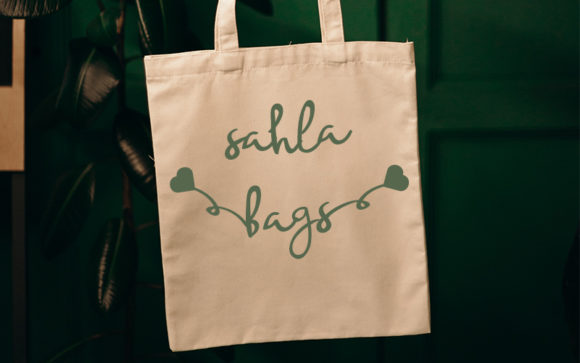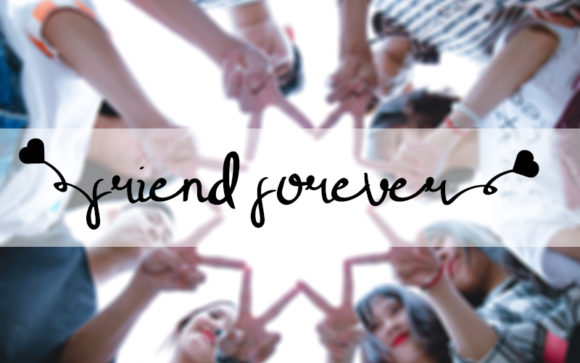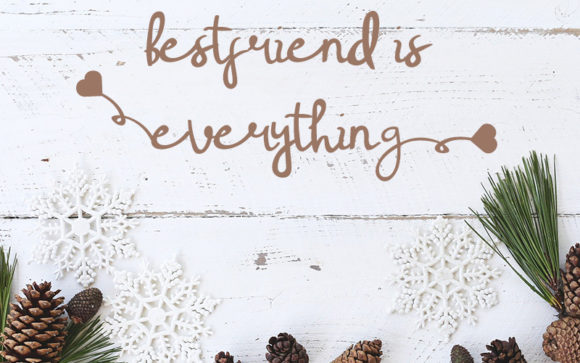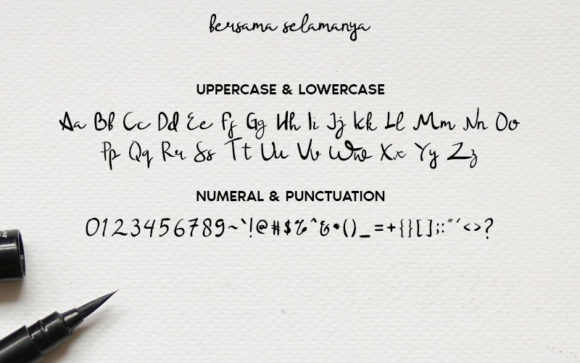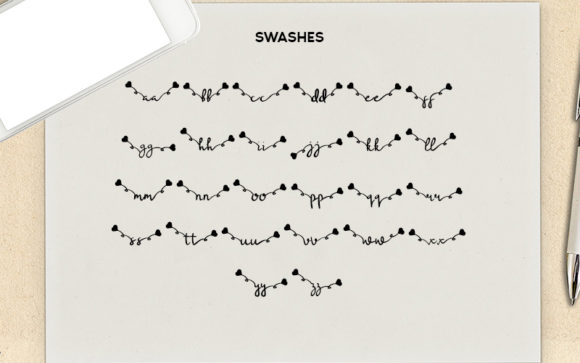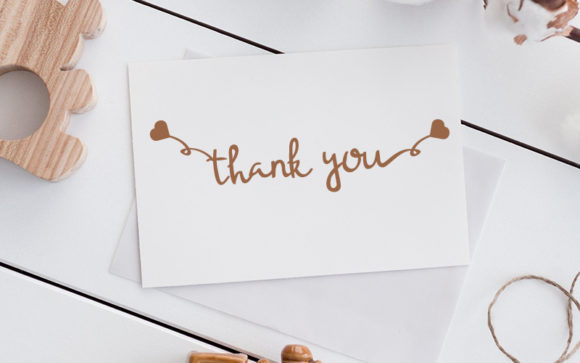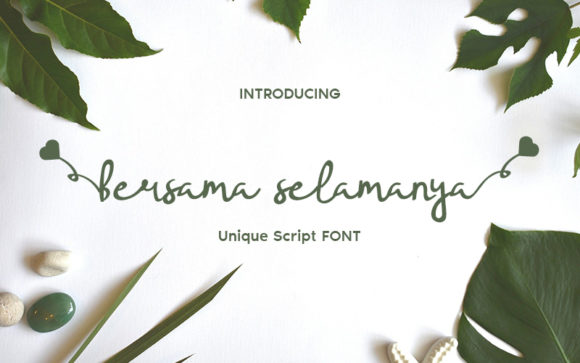
Bersama Selamanya Font: Elevate Your Designs with Elegance and Versatility
Are you on the hunt for a font that can add a touch of elegance and sophistication to your designs? Look no further than Bersama Selamanya, a gorgeous and friendly script font that is sure to capture your heart. This stunning font is perfect for designers and crafters who want to create spectacular designs that stand out from the crowd.
What Makes Bersama Selamanya So Special?
Bersama Selamanya is a PUA encoded font, which means you can access all of the glyphs and swashes with ease. This feature makes it incredibly versatile and easy to use, even for those who are new to font design. The font features a varying baseline, smooth lines, gorgeous glyphs, and stunning alternates, making it perfect for a wide range of design projects.
Key Features of Bersama Selamanya Font
- PUA Encoded: Easily access all glyphs and swashes with no fuss.
- Varying Baseline: Adds a touch of elegance and sophistication to your designs.
- Smooth Lines: Creates a beautiful, fluid look that’s perfect for a wide range of design projects.
- Gorgeous Glyphs: Adds a touch of whimsy and fun to your designs.
- Stunning Alternates: Provides you with plenty of options to customize your designs.
Why Choose Bersama Selamanya Font?
There are many reasons why Bersama Selamanya font is the perfect choice for designers and crafters. Here are just a few:
- Versatility: Bersama Selamanya font is incredibly versatile and can be used for a wide range of design projects, from wedding invitations to branding and packaging.
- Elegance: The font’s elegant and sophisticated design makes it perfect for creating designs that are both beautiful and professional.
- Easy to Use: The font’s PUA encoding makes it easy to access all glyphs and swashes, even for those who are new to font design.
How to Use Bersama Selamanya Font
Using Bersama Selamanya font is easy. Here are a few tips to get you started:
- Pair it with Other Fonts: Bersama Selamanya font pairs perfectly with other fonts, making it easy to create stunning designs.
- Experiment with Swashes: The font’s swashes add a touch of elegance and sophistication to your designs. Experiment with different swashes to find the perfect look.
- Use it for a Wide Range of Projects: Bersama Selamanya font is perfect for a wide range of design projects, from wedding invitations to branding and packaging.
Bersama Selamanya font is a gorgeous and friendly script font that is sure to elevate your designs. With its PUA encoding, varying baseline, smooth lines, gorgeous glyphs, and stunning alternates, this font is perfect for designers and crafters who want to create spectacular designs. Whether you’re looking to create elegant wedding invitations or stunning branding and packaging, Bersama Selamanya font is the perfect choice.